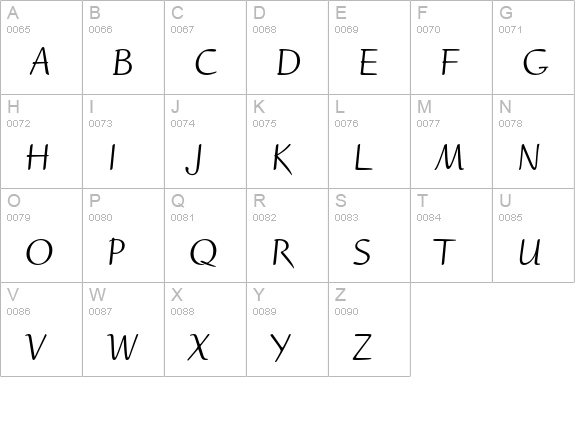
Ruzicka Freehand LH Roman Font Details
Ruzicka Freehand LH Roman font is a stunning typeface that exudes elegance and sophistication. Its flowing lines and intricate details give it a unique and artistic appearance that is sure to captivate any viewer. This freehand font is perfect for adding a touch of creativity and charm to any design project, whether it be for print or digital use. The Ruzicka Freehand LH Roman font is a versatile choice that can be used for a variety of purposes, from invitations and greeting cards to branding and packaging. Its classic yet modern aesthetic makes it a timeless option that will never go out of style. Best of all, this beautiful font is available for free download at FontsMarket.com, making it easily accessible to anyone looking to enhance their designs with a touch of elegance and sophistication. Don't miss out on the opportunity to add this stunning typeface to your collection today!